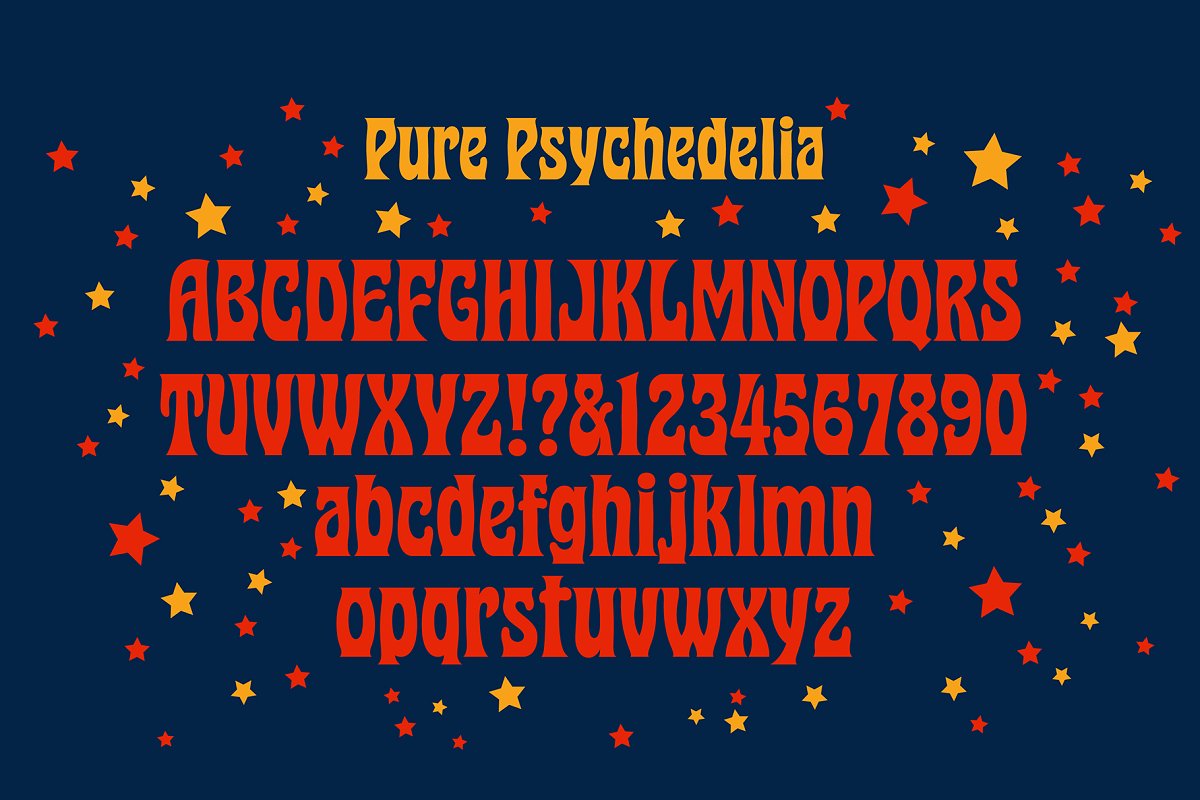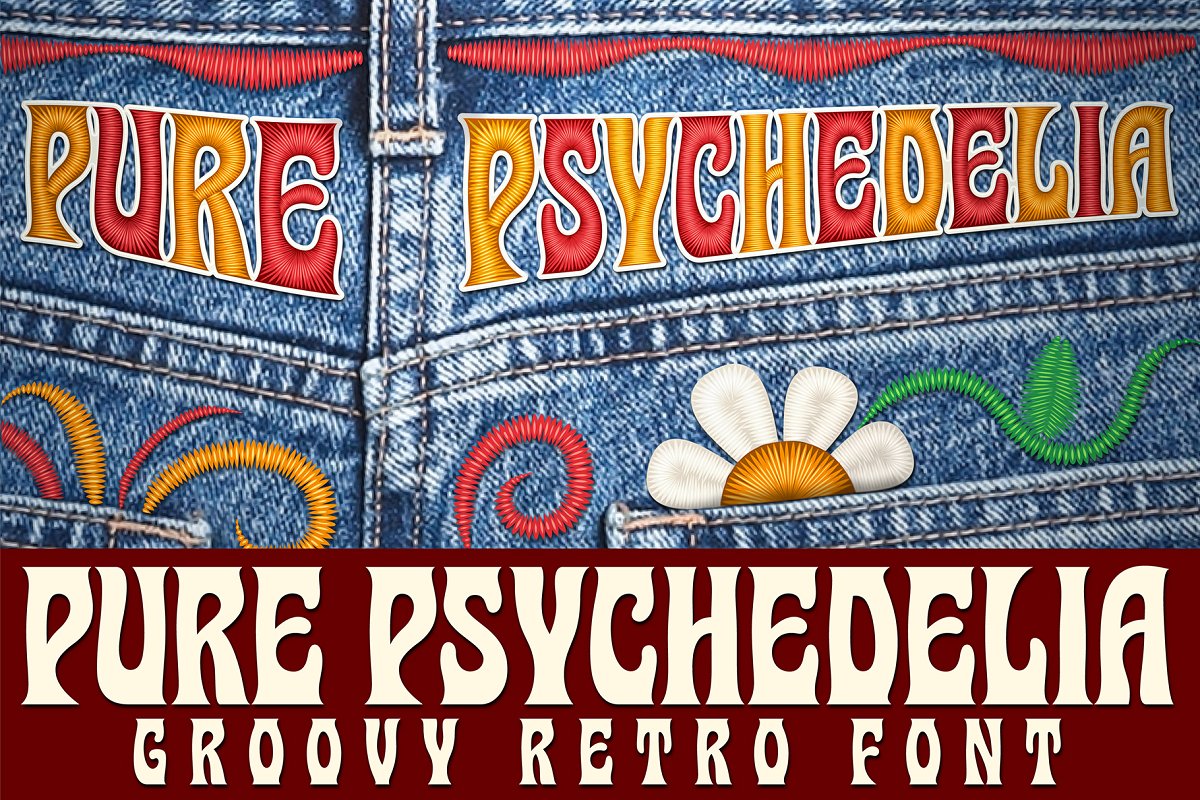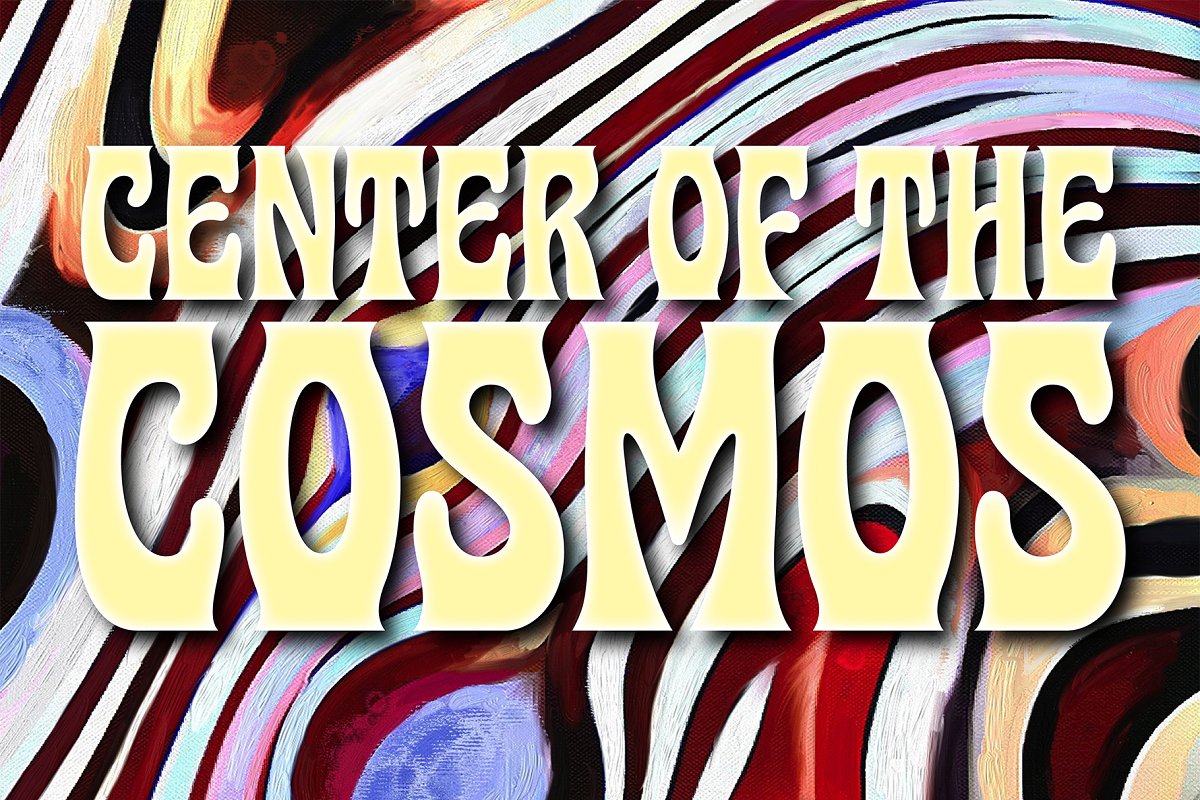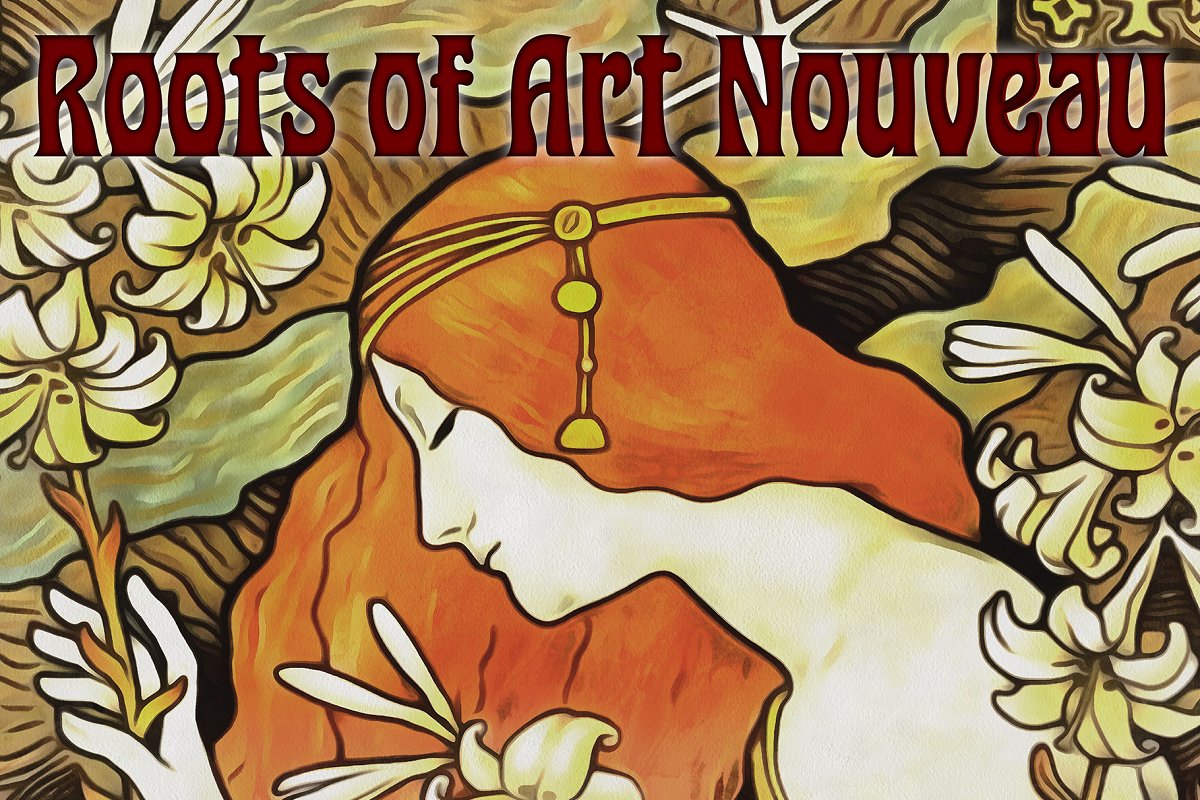
PURE PSYCHEDELIAFor a versatile timeless look that’s sure to bring any groovy graphic idea to life, Mysterylab presents Pure Psychedelia, This condensed font is shot through with twin strands of modernized Art Nouveau and reimagined 1960s psych, This classic stylistic mélange is distilled down to a heady mix of hippy-trippy lava lamp blobs and assertively pointy end tapers, for a unique vibe and a dynamic linear flow